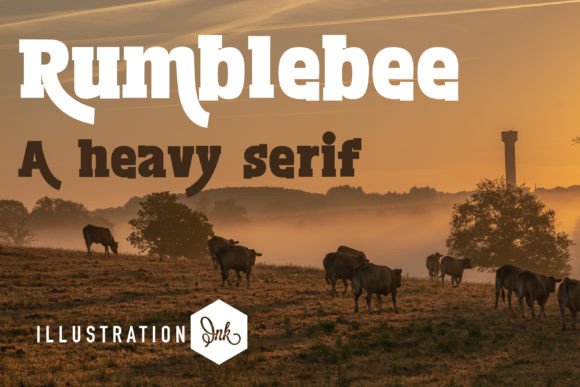
Journey into the realm of typography with Rumblebee Font – a captivating serif font that commands attention with its distinctive elegance and refined style. Crafted with precision and artistry by Illustration Ink, this font embodies the timeless beauty of classic forms while introducing a contemporary twist that sets it apart.
With its bold and distinctive letterforms, Rumblebee Font exudes confidence and sophistication, leaving an unforgettable impression on your audience. Whether you're a graphic designer, artist, or entrepreneur seeking to elevate your creative projects, this font is your perfect companion.
Unleash your creativity and explore endless possibilities with Rumblebee Font. Create captivating headlines that demand attention, design striking logos that resonate with your brand's essence, or craft editorial layouts that captivate readers from the first glance.
Rumblebee Font's versatility shines through its ability to adapt seamlessly to a myriad of design aesthetics. From traditional and classy to modern and edgy, this font effortlessly complements any style you envision. Experiment with different color palettes, textures, and graphic elements to create visually stunning designs that leave a lasting impact.
In the world of digital marketing, where attention spans are fleeting, Rumblebee Font stands as a beacon of clarity and impact. Its distinct letterforms cut through the clutter, ensuring your message reaches its intended audience with crystal clear precision. Whether you're crafting social media posts, website banners, or email campaigns, this font guarantees your message will resonate and be remembered.
Rumblebee Font is more than just a collection of characters; it's an expression of artistry, a tool for creative empowerment, and a gateway to unlock your imagination. Experience the difference that a truly exceptional font can make. Download Rumblebee Font today and embark on a typographic adventure that will transform your designs and captivate your audience.